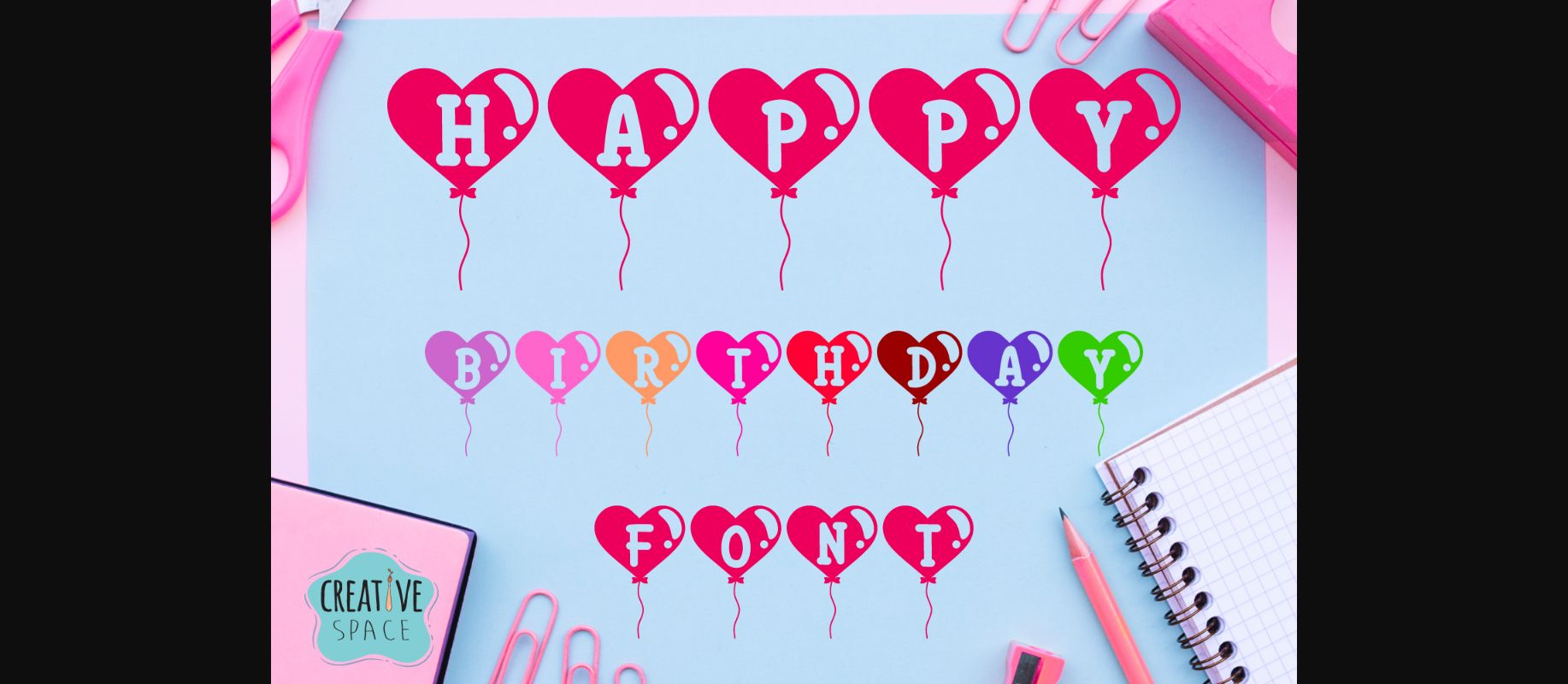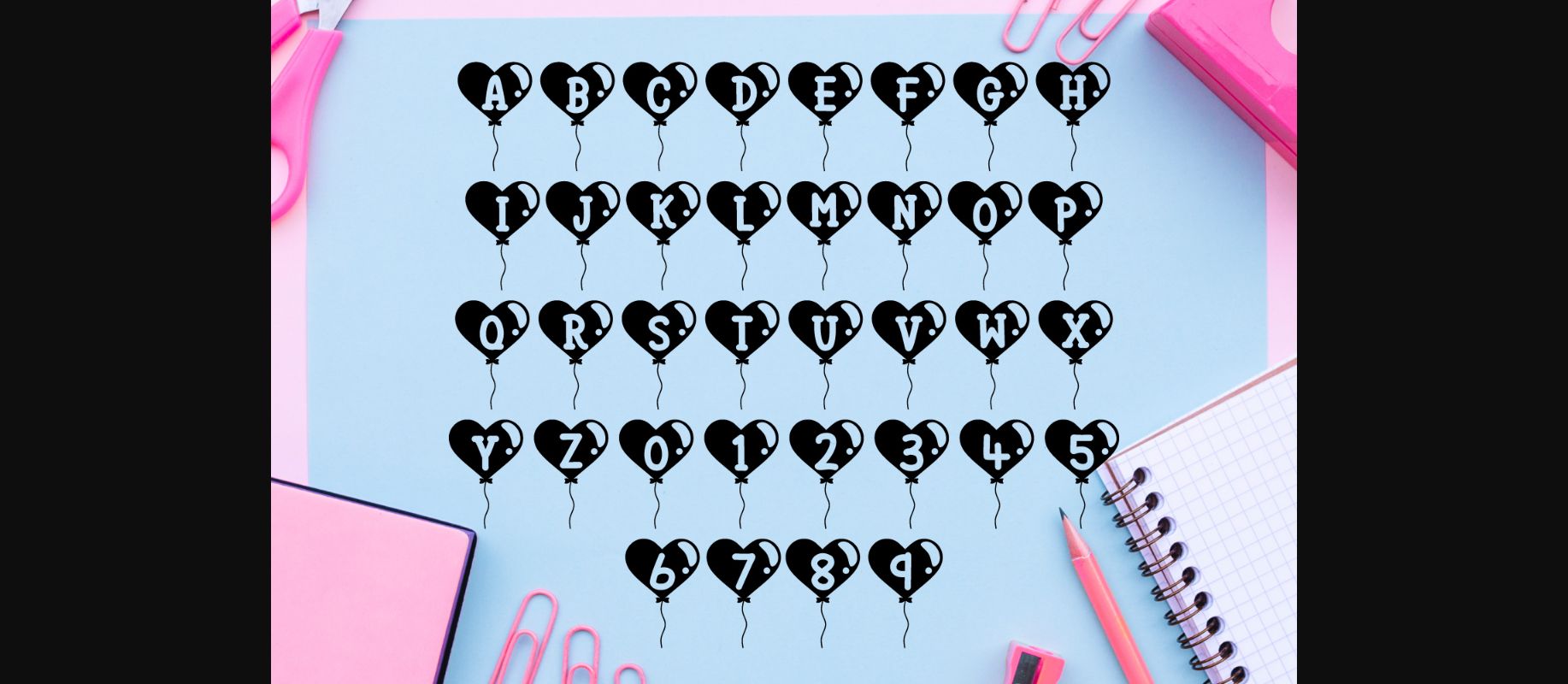
HomeDecorative FontsHappy Birthday Font Decorative Fonts Happy Birthday Font FacebookTwitterPinterestWhatsApp 1 of 4 ... Happy Birthday Font Poster 2... Happy Birthday Font Poster 3... Happy Birthday Font Poster 4... About Happy Birthday Font The Happy Birthday is a fun birthday font. The capital and lowercase letters are the same. DOWNLOAD NOW 116 0 People also explored Bougenville Font Heatter Font Snowman Cartoon Font Hey Kiddo Font Violableness Font Vintage Font Toast Font Marshmallow Font Beach Sunny Font Jennine Font Scripto Fonte Font Baby Bee Font TagsHappy Birthday Font Previous articleJanzen FontNext articleFilm Letters Font LEAVE A REPLY Cancel reply Comment: Please enter your comment! Name:* Please enter your name here Email:* You have entered an incorrect email address! Please enter your email address here Website: Save my name, email, and website in this browser for the next time I comment. Unlock Endless Creativity with the FREE September Clipart Huge Bundle (Valued at $700!) Personal Use Free Ryujin Attack Personal Use Free Read more Elevate Your Halloween Designs with 500 Free High-Quality PNG Clipart Files Personal Use Free Read more Concre Personal Use Free Read more Old Linoleum Personal Use Free Read more BLOG Where to Buy American Fonts Online in 2024 Where to Buy American Fonts Online: The Ultimate Guide for 2024 Looking for the perfect American font to elevate your design projects? You're in the... Free Fonts Risk: Why Free Fonts Can Be Dangerous for Designers Top 7 Google Fonts Alternatives for Faster and Privacy-Friendly Web Design (2025) Using Fonts in Digital Marketing: Tips to Strengthen Your Brand Identity